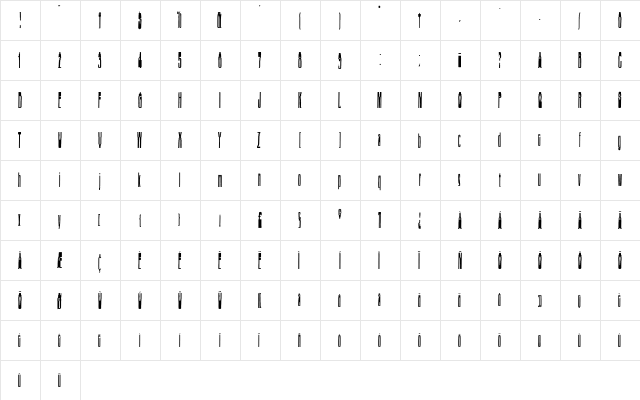
Dirtyfax Normal
Design Context for Dirtyfax Typeface
Dirtyfax is a composed and adaptable typeface that performs quietly and consistently across a wide range of design contexts.